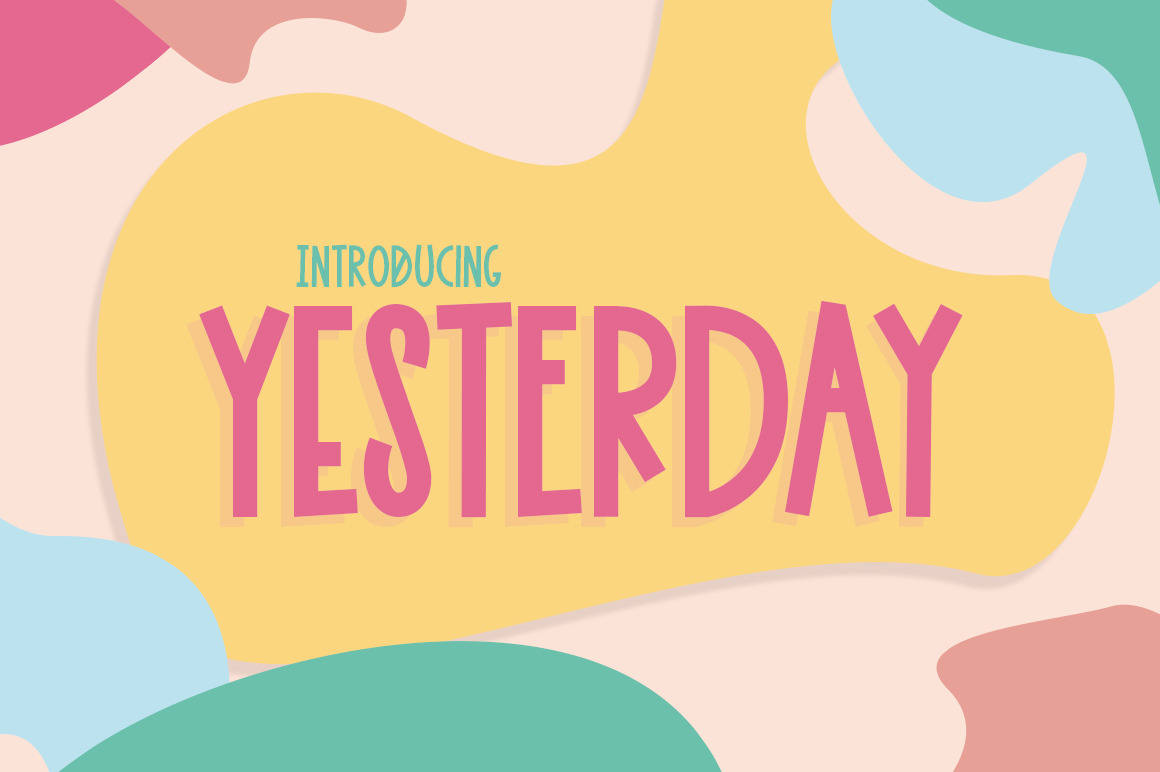
Yesterday Font
Yesterday is here today! Download it now and enjoy its cute and fun characters that are both modern and cool at the same time. Super easy to pair with scripts and other fonts. Enjoy!